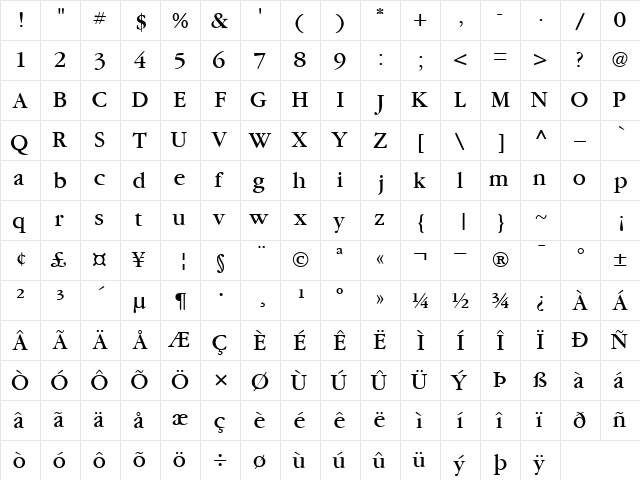
GaramondBookSSK Regular
Design Context for GaramondBookSSK Typeface
GaramondBookSSK is a composed and adaptable typeface that performs quietly and consistently across a wide range of design contexts.